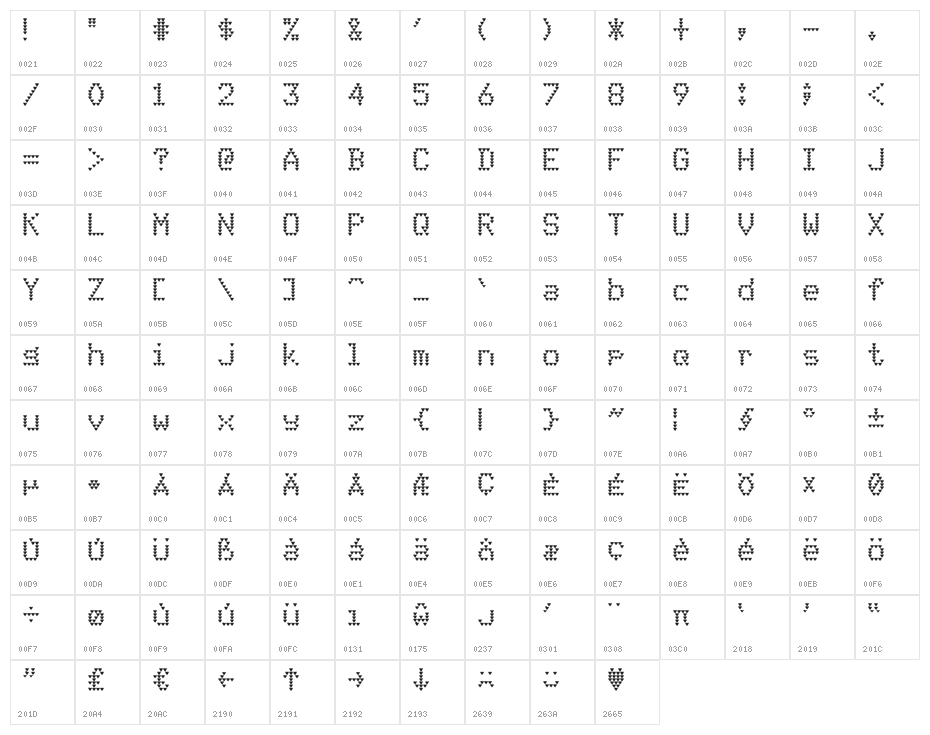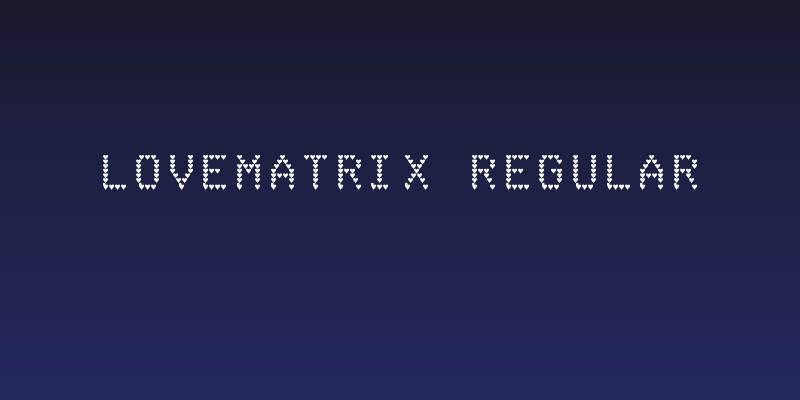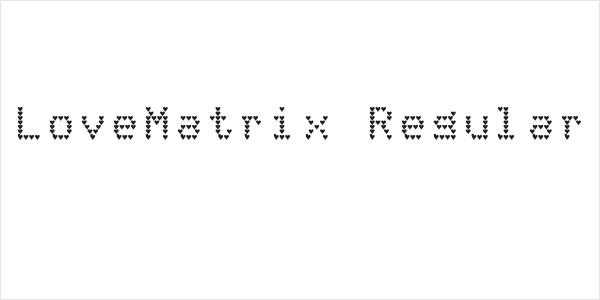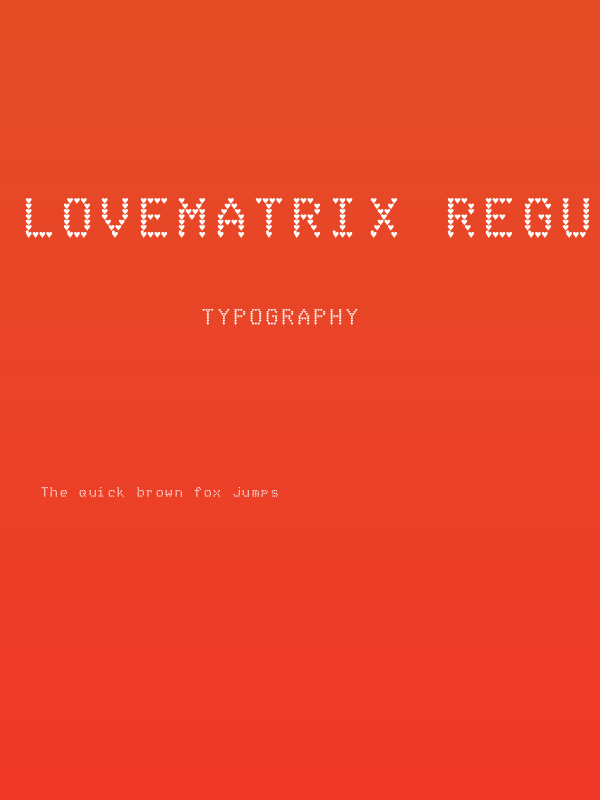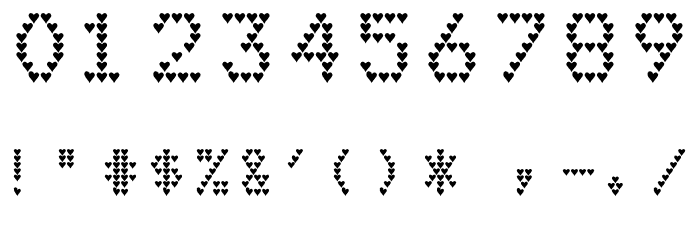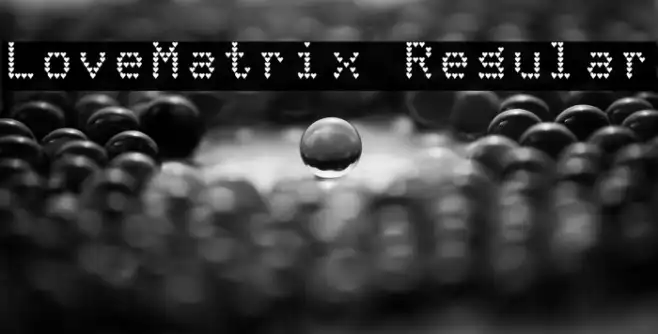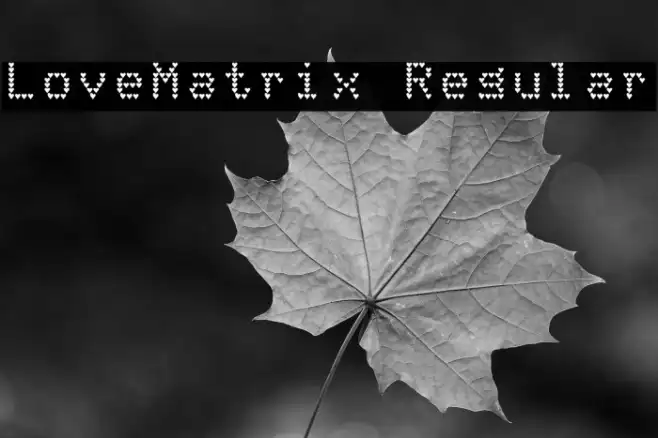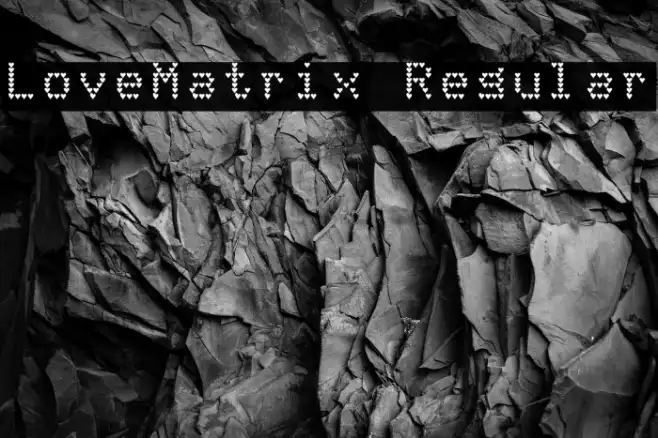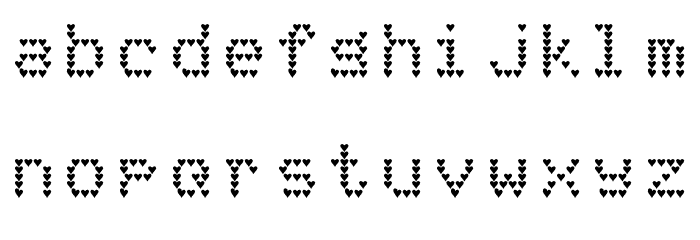
LoveMatrix Regular Font
LoveMatrix Regular Description
This font features a unique and playful design where each character is composed of small heart shapes. The overall appearance is decorative and whimsical, making it ideal for projects that require a touch of romance or fun. The uppercase and lowercase letters, as well as numbers and special characters, maintain a consistent style with heart motifs, creating a cohesive and charming look. The font's distinct style makes it stand out, perfect for creative and lighthearted applications.
| Proposed Projects | Valentine's Day cards, wedding invitations, playful branding, love-themed posters, and children's book covers. |